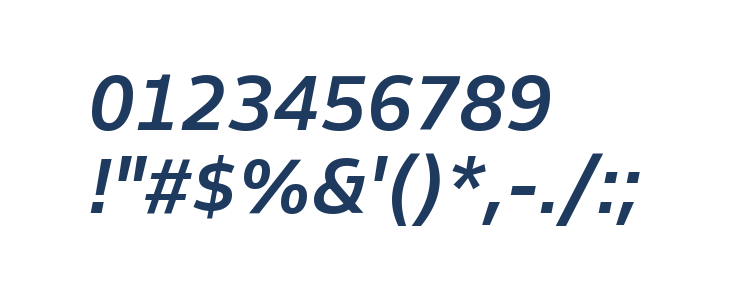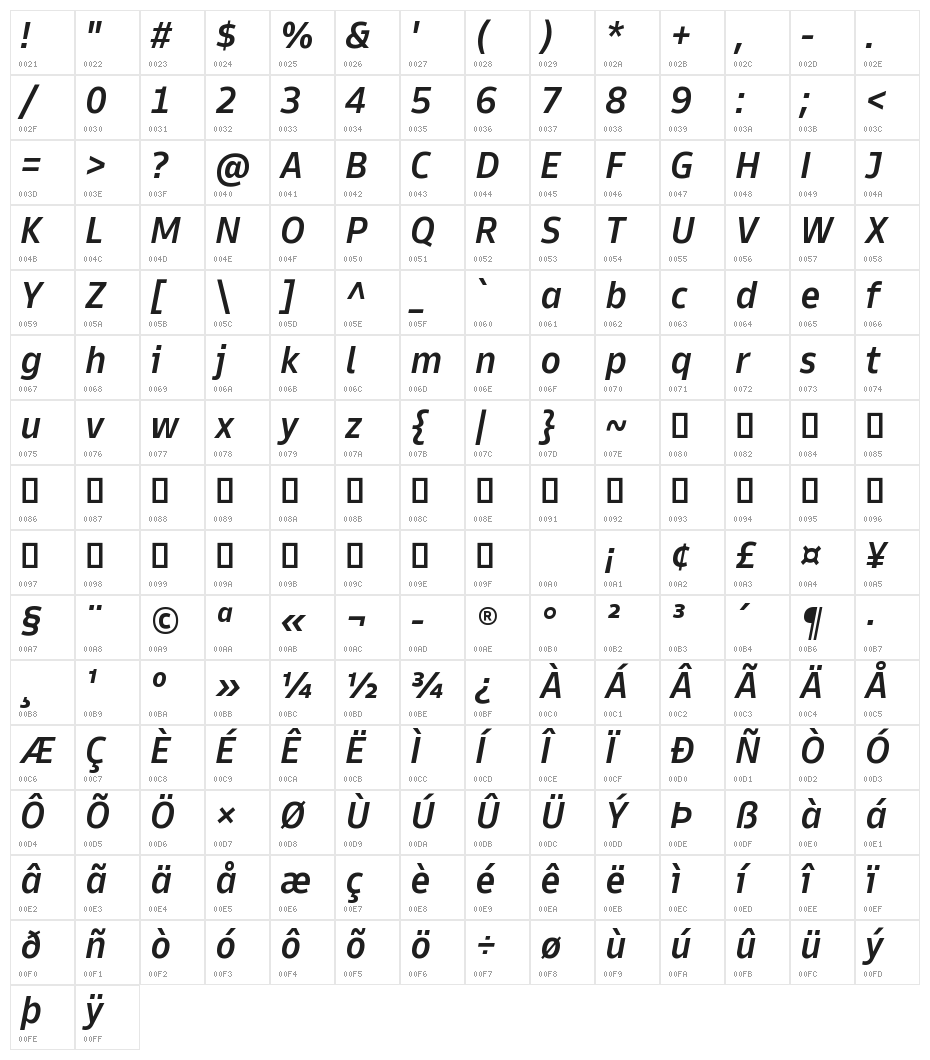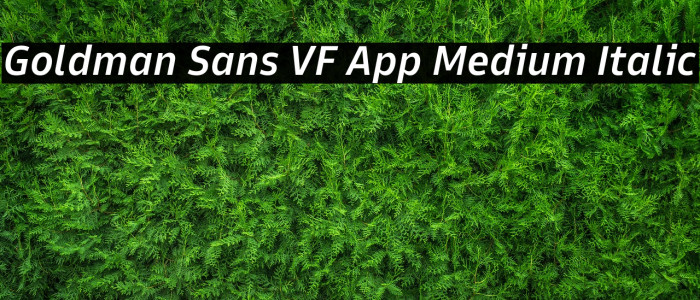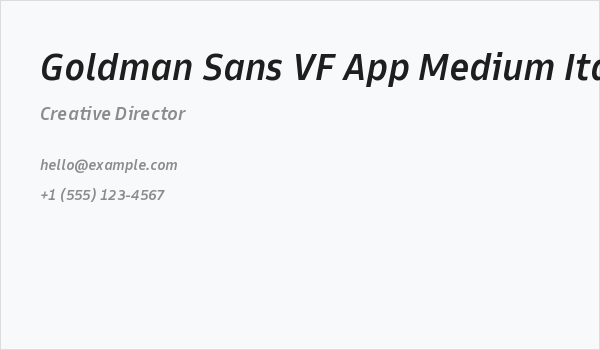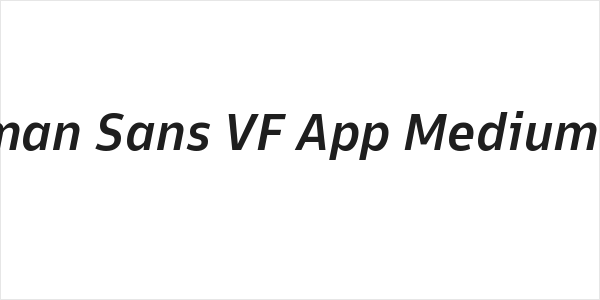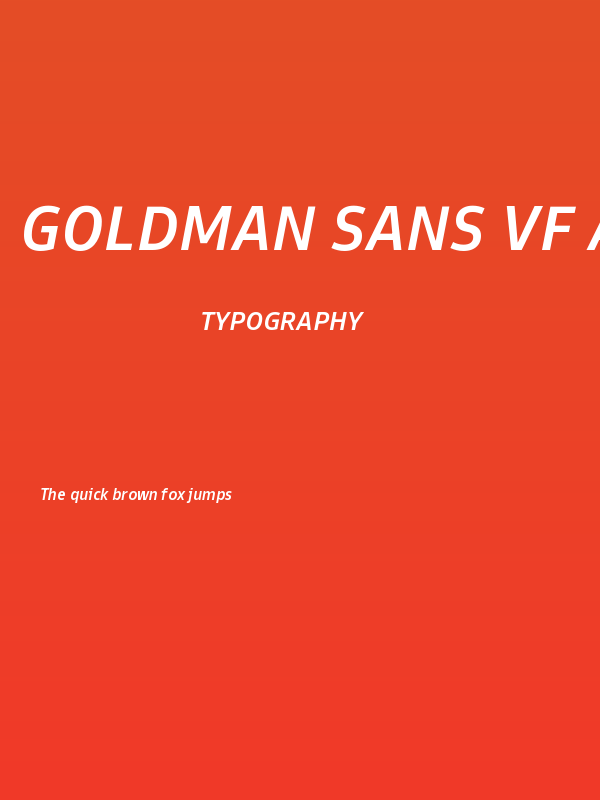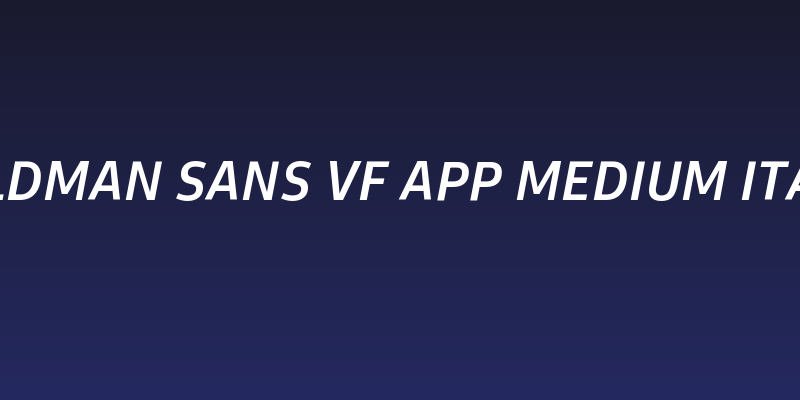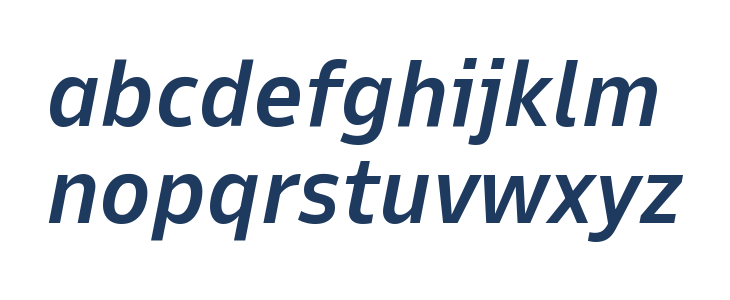
Goldman Sans VF App Medium Italic Font
Goldman Sans VF App Medium Italic Description
This font features a clean and modern sans-serif style with a medium weight and italic slant. The characters are well-defined with a slight forward tilt, giving a dynamic and contemporary feel. The uppercase and lowercase letters maintain a consistent style, ensuring readability and elegance. The numerals are clear and balanced, making them suitable for various applications. Special characters are included, providing versatility for different design needs. The overall appearance is sleek and professional, ideal for digital and print media.
| Proposed Projects | Ideal for branding, advertising, web design, and editorial projects where a modern and professional look is desired. |